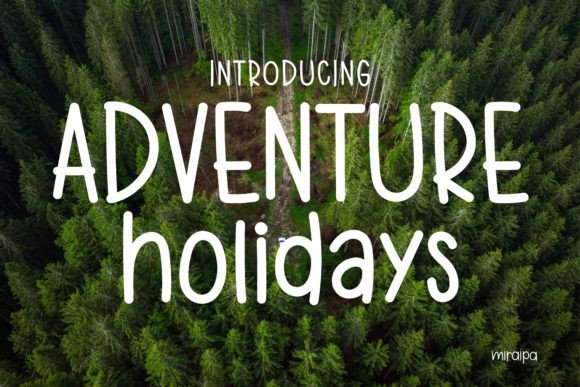
Discover the Charm of Adventure Holidays Font: Elevate Your Designs with a Friendly and Lovely Handwritten Style
Are you tired of using the same old fonts in your designs? Look no further than Adventure Holidays Font, a cute handwritten font that is sure to add a touch of personality to your creative projects. Designed in a friendly and lovely style, this font is perfect for those who want to add a bit of whimsy and charm to their designs.
What is Adventure Holidays Font?
Adventure Holidays Font is a beautiful, handwritten font that is designed to be both friendly and lovely. With its well-balanced characters and elegant lines, this font is perfect for a wide range of designs, from invitations and greeting cards to posters and social media graphics.
One of the standout features of Adventure Holidays Font is its versatility. Whether you’re creating a design for a children’s party or a sophisticated business brand, this font is sure to fit the bill. Its unique blend of playfulness and sophistication makes it an excellent choice for designers who want to add a bit of personality to their work.
Key Features of Adventure Holidays Font
- Cute and Handwritten Style: Adventure Holidays Font is a handwritten font that is designed to be cute and endearing. Its friendly style makes it perfect for designs that require a personal touch.
- Well-Balanced Characters: The font features well-balanced characters that are easy to read and visually appealing. This makes it perfect for body text and headings.
- Versatile: Adventure Holidays Font is versatile and can be used for a wide range of designs, from invitations and greeting cards to posters and social media graphics.
- Elegant Lines: The font features elegant lines that give it a sophisticated and refined look.
Creative Ways to Use Adventure Holidays Font
Adventure Holidays Font is a versatile font that can be used for a wide range of designs. Here are some creative ways to use this font:
- Invitations and Greeting Cards: Use Adventure Holidays Font to create beautiful and personalized invitations and greeting cards for special occasions such as weddings, birthdays, and holidays.
- Posters and Flyers: Add a touch of personality to your posters and flyers with Adventure Holidays Font. This font is perfect for promoting events, products, and services.
- Social Media Graphics: Use Adventure Holidays Font to create engaging and eye-catching social media graphics that will help you stand out from the crowd.
- Branding and Packaging: Adventure Holidays Font can be used for branding and packaging designs, adding a touch of personality and whimsy to your brand.
Tips and Tricks for Using Adventure Holidays Font
Here are some tips and tricks for using Adventure Holidays Font:
- Pair it with Other Fonts: Adventure Holidays Font can be paired with other fonts to create a unique and visually appealing design.
- Experiment with Colors: Try out different colors and color combinations to add depth and interest to your design.
- Use it for Headings and Titles: Adventure Holidays Font is perfect for headings and titles, adding a touch of personality and whimsy to your design.
- Keep it Simple: Don’t overcomplicate your design. Keep it simple and let the font speak for itself.
The Benefits of Using Adventure Holidays Font
There are many benefits to using Adventure Holidays Font in your designs. Here are a few:
- Unique and Eye-Catching: Adventure Holidays Font is a unique and eye-catching font that will help you stand out from the crowd.
- Versatile: This font is versatile and can be used for a wide range of designs.
- Easy to Read: Adventure Holidays Font is easy to read, making it perfect for body text and headings.
- Customizable: You can customize the font to fit your design needs, making it perfect for branding and packaging designs.
In conclusion, Adventure Holidays Font is a beautiful and versatile handwritten font that is perfect for designers who want to add a touch of personality to their creative projects. With its friendly and lovely style, well-balanced characters, and elegant lines, this font is sure to elevate your designs and help you stand out from the crowd.
Whether you’re creating invitations, posters, social media graphics, or branding and packaging designs, Adventure Holidays Font is a great choice. So why not give it a try and see how it can bring your designs to life?